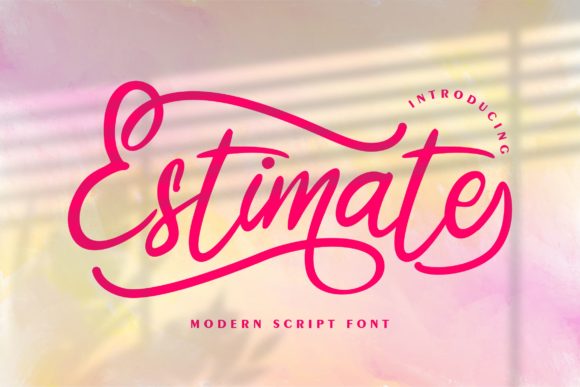
About Estimate Font
Estimate is an elegant handwritten font. Fall in love with its incredibly versatile style and use it to create gorgeous wedding invitations, beautiful stationary art, eye-catching social media posts, and much more!